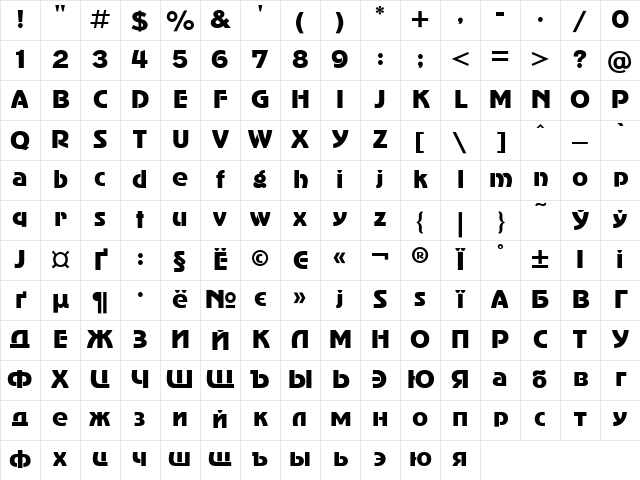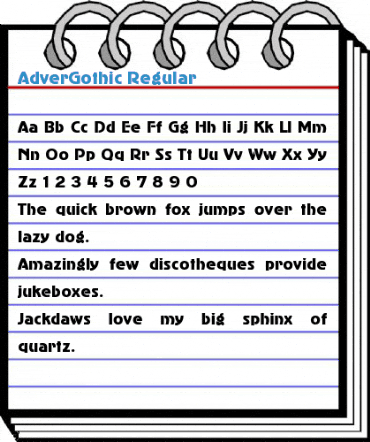
UkrainianAdverGothic Regular Free Font
UkrainianAdverGothic Regular
Complete UkrainianAdverGothic Regular glyph index. Displaying only characters natively supported by UkrainianAdverGothic Regular font.
Design Context for UkrainianAdverGothic
UkrainianAdverGothic takes a clean, functional approach - its unadorned letterforms prioritise legibility and work reliably across screen and print environments.
Works well in signage, UI design, marketing materials, and anywhere clean functional typography is needed.
Font Pairing: Works well alongside a characterful serif or display font that can carry the expressive load while UkrainianAdverGothic handles the functional copy.
Pro Tip: Use UkrainianAdverGothic for UI labels, navigation, and short-form body copy where clean legibility is the priority.